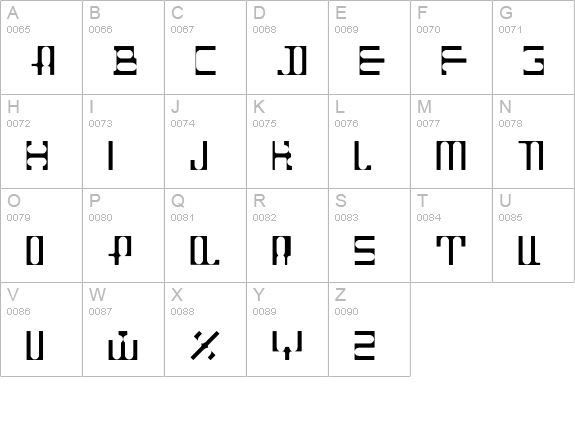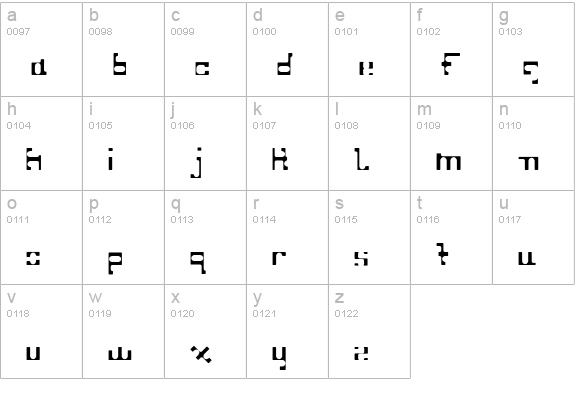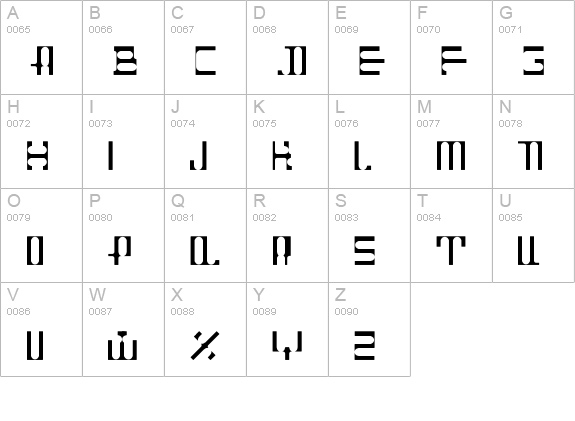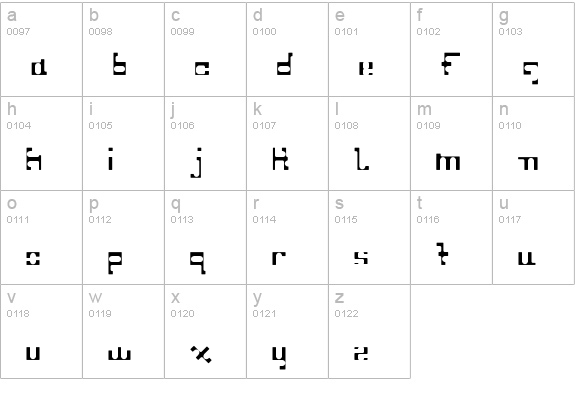
Dahgir-Square Font Details
Introducing Dahgir-Square, a bold and captivating typeface that effortlessly blends modernity with a touch of retro charm. This unique font boasts strong geometric shapes, sharp edges, and a square-like structure, making it the perfect choice for projects that require a strong visual impact. With its sleek and powerful appearance, Dahgir-Square is ideal for a wide range of creative applications. Whether you're designing eye-catching logos, crafting attention-grabbing headlines, or creating striking posters, this font is sure to make a lasting impression. Not only does Dahgir-Square possess an impressive aesthetic appeal, but it also offers a high level of versatility. Its legible letterforms ensure readability in both small and large sizes, making it equally suitable for print and digital projects. You can easily customize this font to suit your needs, as it includes a comprehensive set of uppercase and lowercase letters, numerals, punctuation marks, and special characters. One of the most remarkable aspects of Dahgir-Square is that it is available to download for free at FontsMarket.com. This means that you can enhance your creative endeavors without any financial constraints. Simply visit FontsMarket.com, and you'll be able to access this captivating font in just a few clicks. So why wait? Unleash your creativity and explore the endless possibilities that Dahgir-Square has to offer. Download this exceptional font today and give your designs the attention they deserve.